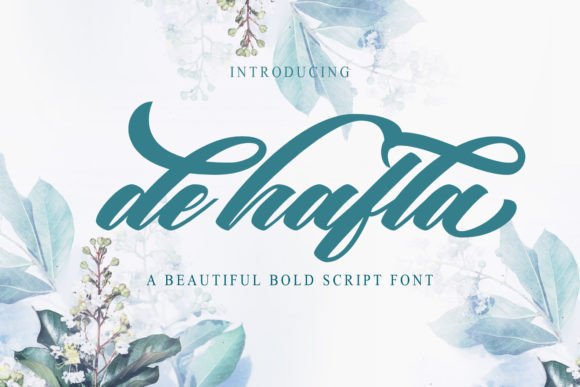
De Hafla Script Font
Hello friend. This is a modern calligraphy script font. It has an elegant touch which is perfect for Instagram stories, natural products, branding, and much more!.
Introducing De Hafla Font. It’s beautiful bold script typeface featuring flowing characters. It is perfectly suited for a wide variety of projects!
De Hafla perfect for branding projects, logo, wedding designs, social media posts, advertisements, product packaging, tshirt design, product designs, label, photography, watermark, invitation, stationery and any projects.